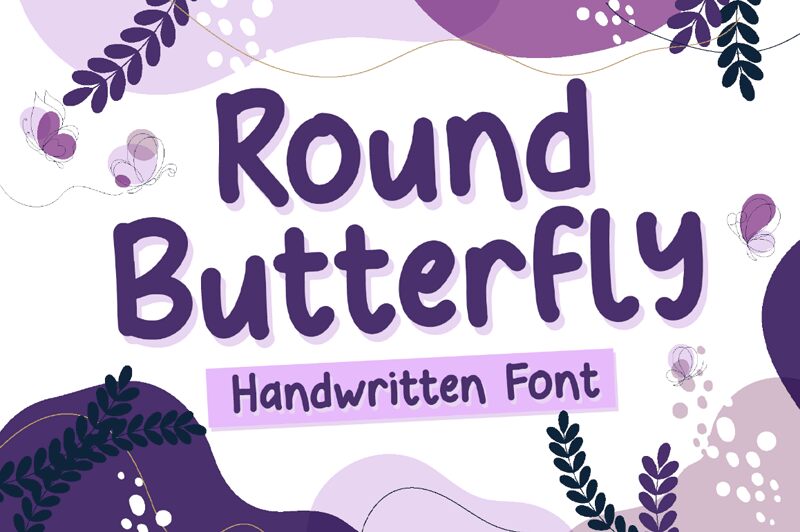
Round Butterfly is a charming handwritten font by Phantom Studio, designed to bring a touch of whimsy and elegance to your projects. With its delicate curves and playful strokes, this font is perfect for wedding invitations, greeting cards, and feminine branding. The semi-bold typeface adds a modern twist, making it suitable for fashion magazines or beauty blogs. Its versatility also makes it ideal for children's books or craft projects, infusing them with a sense of joy and creativity. Let Round Butterfly transform your designs into delightful works of art that capture hearts and imaginations.